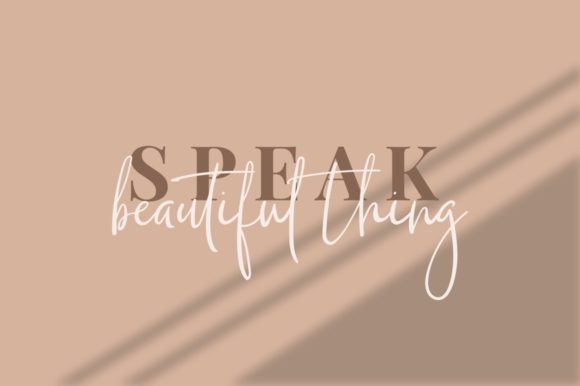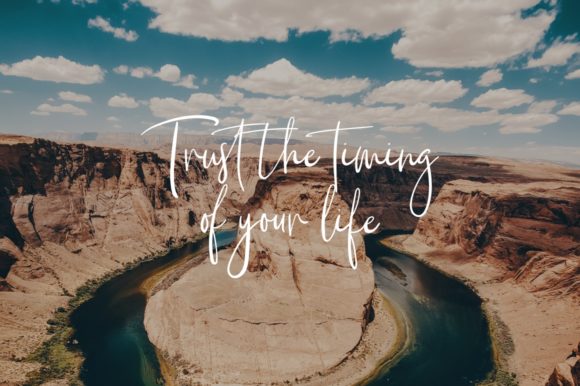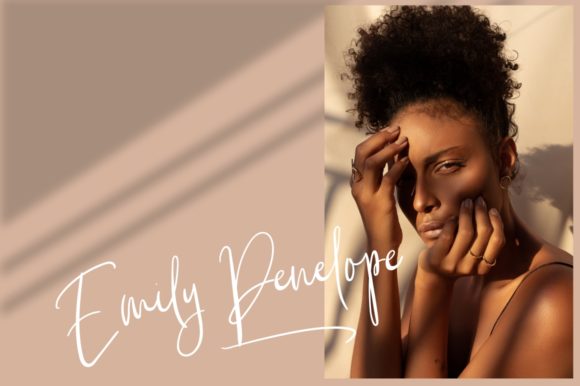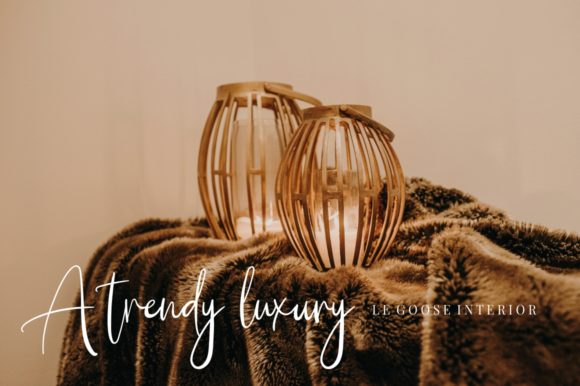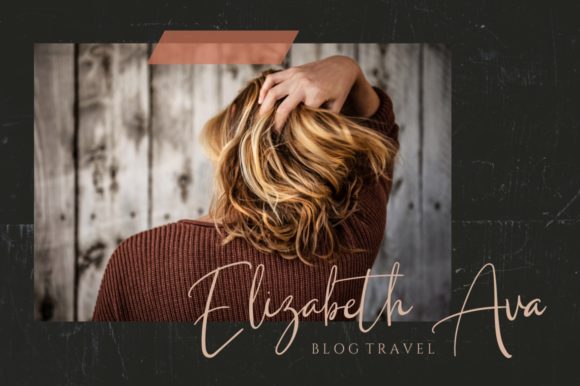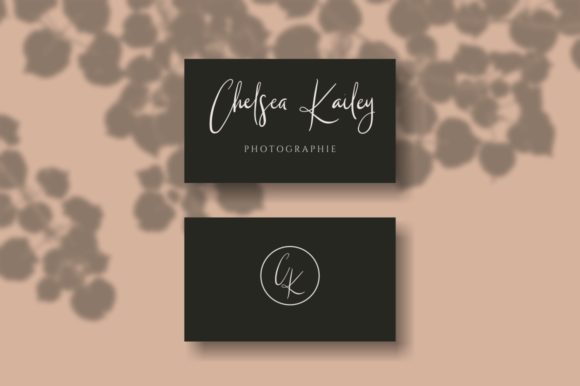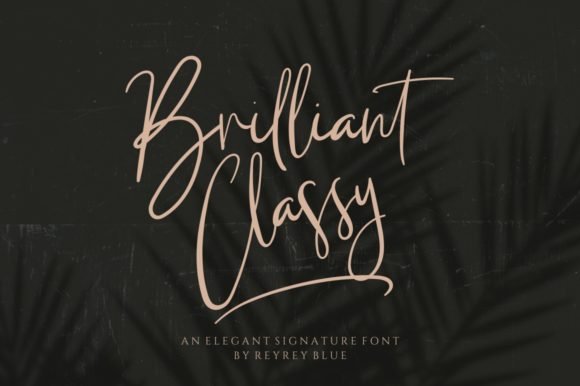
When Words Become Art: The Magic of Briliant Classy Font
There’s something special about seeing a beautifully crafted handwritten font come to life on a page. It’s as if the words themselves are dancing across the paper, inviting the reader to immerse themselves in the story. For designers, this moment is a testament to the power of typography – and the Briliant Classy Font is a masterclass in capturing that magic.
This modern and fashionable handwritten font is the perfect choice for stylish branding & logo projects, product packaging, handwritten quotes, editorial design invites, greetings and more. With its elegant, flowing lines and sophisticated flair, the Briliant Classy Font is an essential tool for designers looking to add a touch of class to their work.
Briliant Classy Font Key Features
- Font Family: Briliant Classy Font is a high-end, elegant script font that comes in 6 different font families, each with its unique style and flair.
- Unique Characteristics: This font features intricate details, elegant swirls, and refined flourishes, making it perfect for creating luxurious, high-end designs that exude sophistication and elegance.
- Language Support: Briliant Classy Font supports a wide range of languages, including Latin, Cyrillic, Greek, and many more, making it a versatile choice for designers working on global projects.
Designer Review: Brilliant Classy Font
I recently had the chance to work with Brilliant Classy Font, and I must say it’s an interesting mix of style and functionality. Here’s my honest review.
- Unique aesthetic: The font has a distinct, elegant look that’s perfect for creating a sophisticated atmosphere.
- Good legibility: The font is easy to read, even at smaller font sizes.
- Limited character set: The font only includes a limited set of characters, which can be a problem for languages that require a wider character set.
- No bold or italic variants: The font only comes in a single weight, which can limit its versatility.
Overall, I think Brilliant Classy Font is a solid choice for designers who want to add a touch of elegance to their projects. While it has some limitations, its unique aesthetic and good legibility make it a worthwhile option. Just be aware of its limitations before making a final decision.
Tips for Getting the Most Out of Briliant Classy Font
Use Briliant Classy Font for headings and titles to add a touch of elegance to your designs. Pair it with a sans-serif font for body text to create a balanced and sophisticated look. Experiment with different font sizes and colors to add visual interest to your designs.
Briliant Classy Font is ideal for:
- Resumes and cover letters
- Formal event invitations and announcements